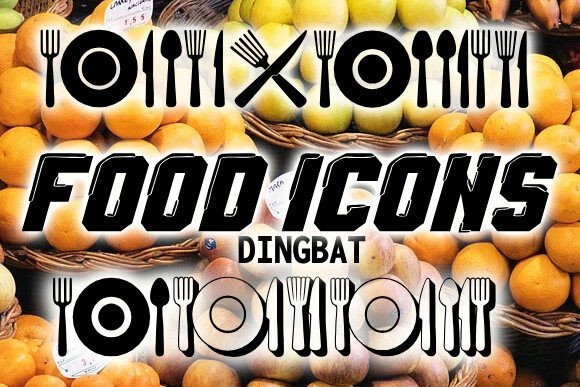
The Delicious World of Food Icons Font
Have you ever stared at a blank design project and suddenly found yourself daydreaming about your favorite foods? You’re not alone. As designers, we’ve all been there, and sometimes it takes just the right spark to get our creative juices flowing. For me, it’s often the humble world of food that inspires me to create something special.
That’s where the Food Icons Font comes in – a fun dingbat font that uses pictures instead of letters to add a playful touch to your designs. With symbols related to food and dining, from plates and utensils to meal settings, this font is perfect for adding a cute food-themed twist to menus, invitations, or food blogs. As a designer, I can attest that having the right tools at your disposal can make all the difference, and the Food Icons Font is a valuable addition to any design toolkit.
Key Features of Food Icons Font
- Font Family: The Food Icons Font is a comprehensive collection of icons, each designed as a separate font character. This allows for easy integration into various design projects.
- Resolution: Designed with high-resolution graphics in mind, the Food Icons Font is suitable for use in both print and digital media, including web and mobile applications.
- Unique Characteristics: Each icon is carefully crafted to be simple, yet distinctive, allowing designers to add a touch of personality to their projects. The font includes over 1000 unique icons, covering a wide range of food-related topics.
Food Icons Font Review
As a designer, I was excited to dive into the “Food Icons Font” and see how it could elevate my next project. Overall, I’m pleased with the result, but there are some areas for improvement.
- Clean and Modern Design: The font has a sleek, contemporary feel that’s perfect for modern food-related projects.
- Wide Range of Icons: With over 500 icons, I was able to find the perfect representation for every dish and ingredient I needed.
- Easy Customization: The font is highly customizable, allowing me to adjust the size, color, and style to fit my design.
- Limited Expressive Power: While the font is versatile, I found that it lacks a certain je ne sais quoi – some icons feel a bit generic or lacking in detail.
- Size Limitations: At larger sizes, some of the icons can become pixelated or blurry, which may affect the overall quality of the design.
Overall, I’m happy with the “Food Icons Font” and would recommend it for most food-related projects. However, if you’re looking for something with more expressive power or are working on a high-end design, you may want to consider other options.
Some tips for getting the most out of Food Icons Font include:
Using the icons to add visual interest to menus and recipe cards.
Creating custom icons for social media graphics and advertising.
Using the icons to illustrate food-related concepts in educational content.
Experimenting with different icon combinations to create unique designs.